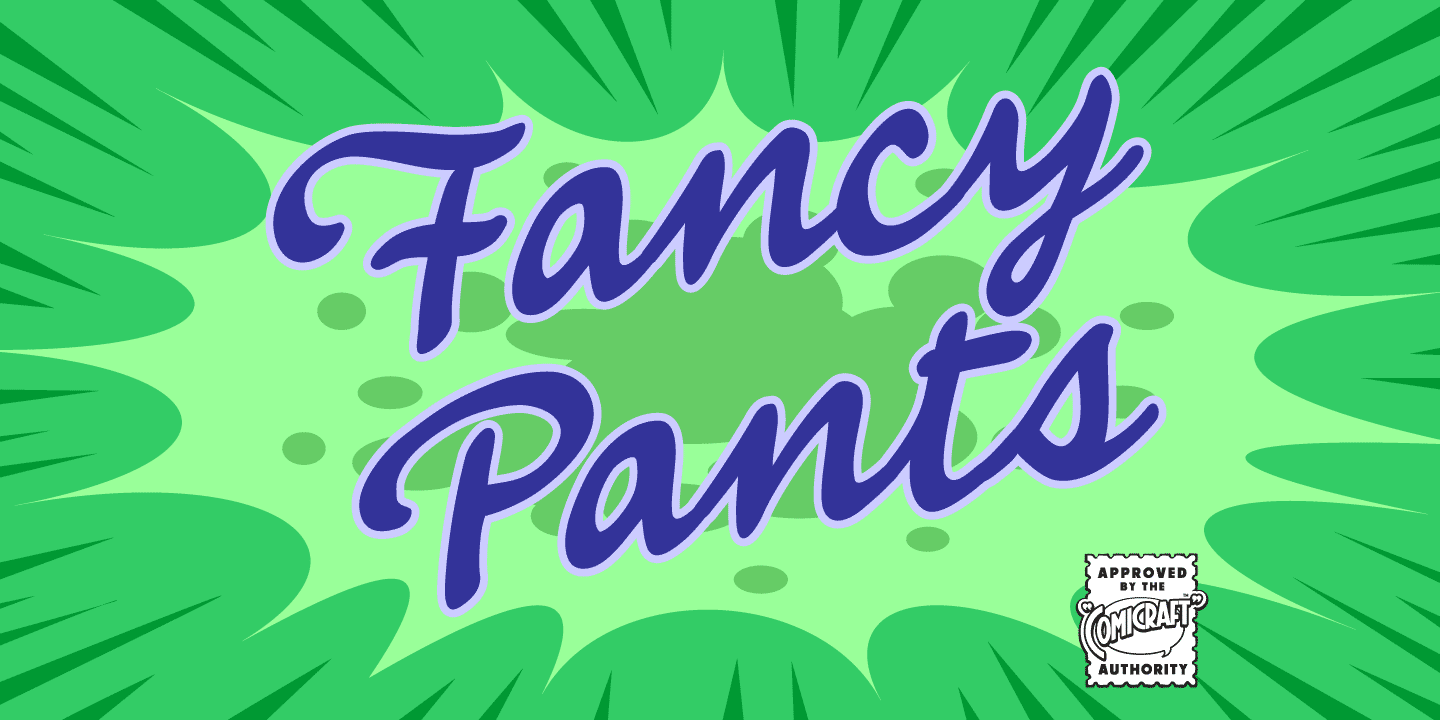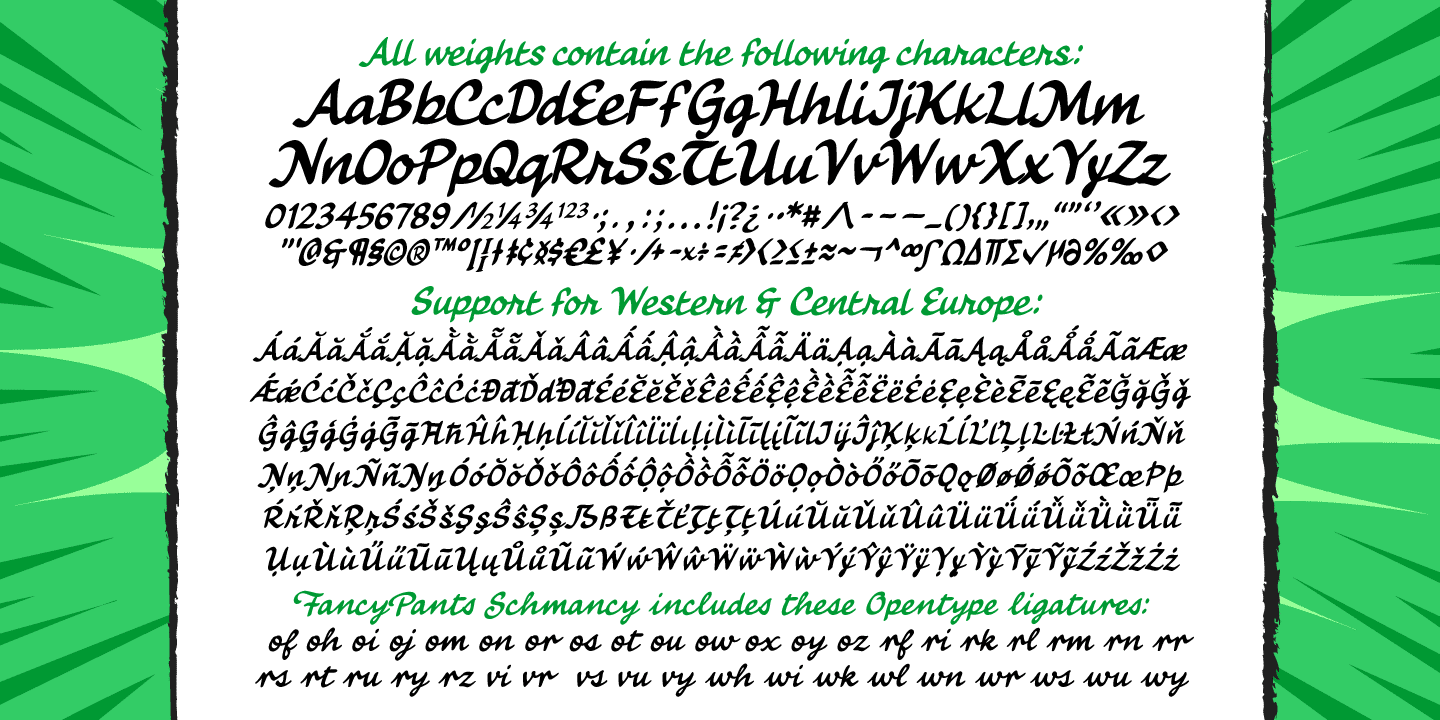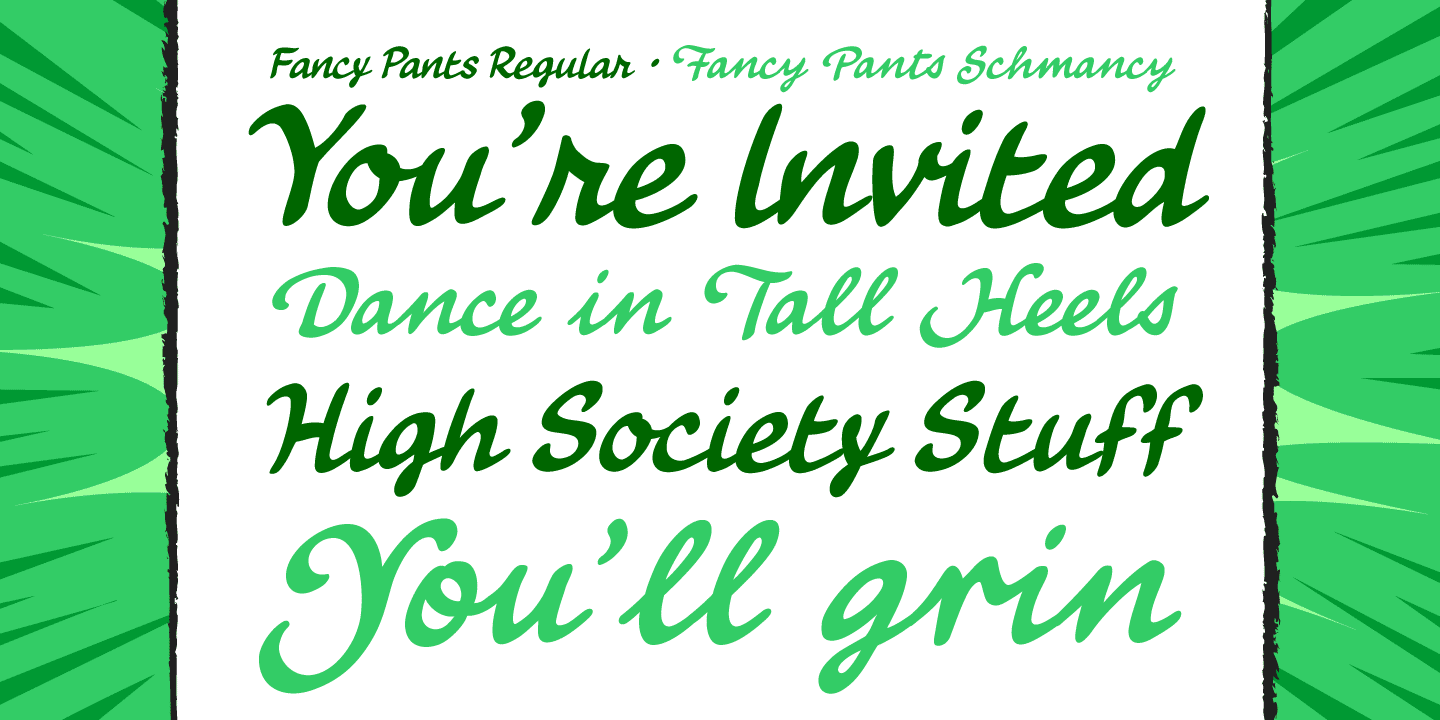
Fancy Pants
Font Family by Comicraft Fonts
Buy NowWe call this font Fancy Pants and if you give it a glance, it WILL just dance, dance, dance. In tall high heels and pretty toes, this slick chick font is ready to pose for invitations, party plans or high society soirées and forays into the boom boom rooms and pubs and clubs where fancy meets schmancy, and your pants will make YOU get up and dance and your face want to grin. It's all win-win!